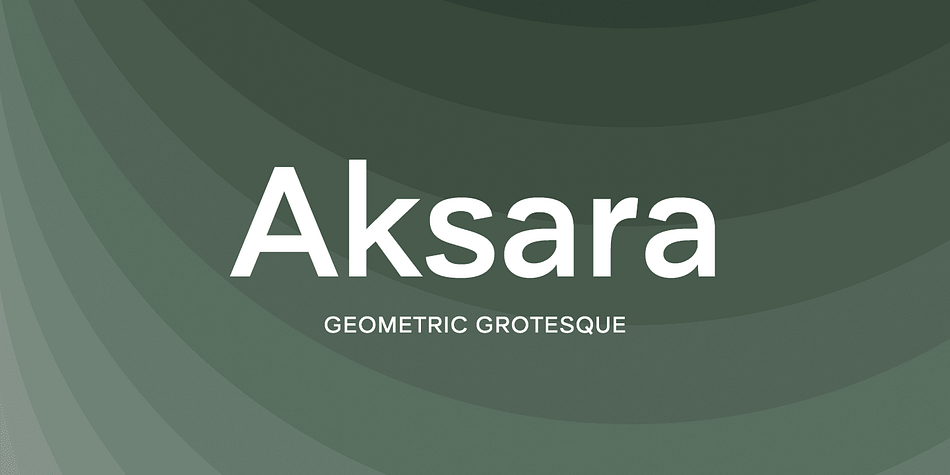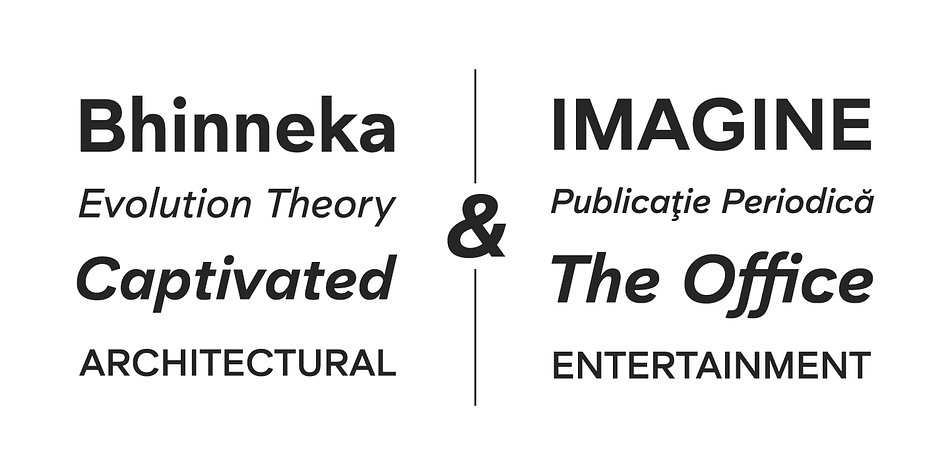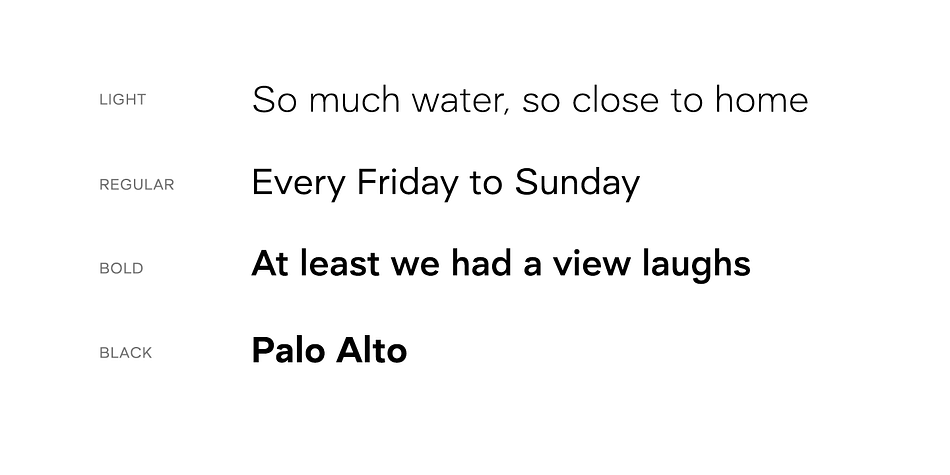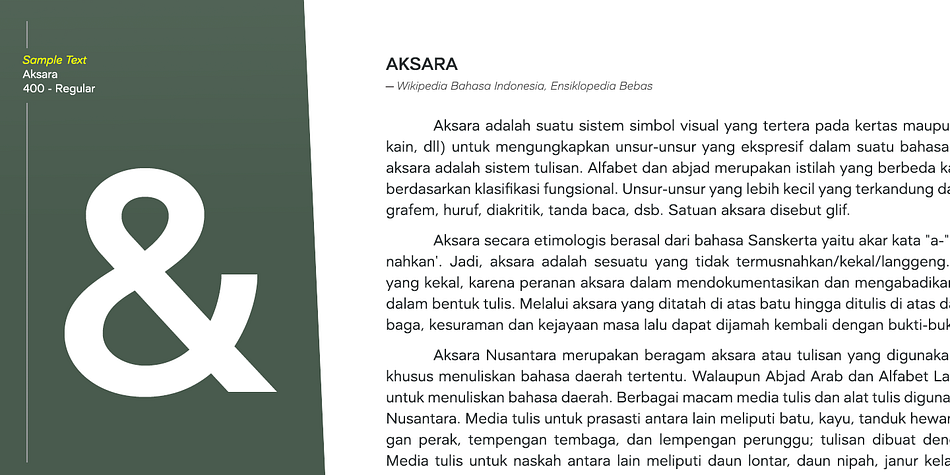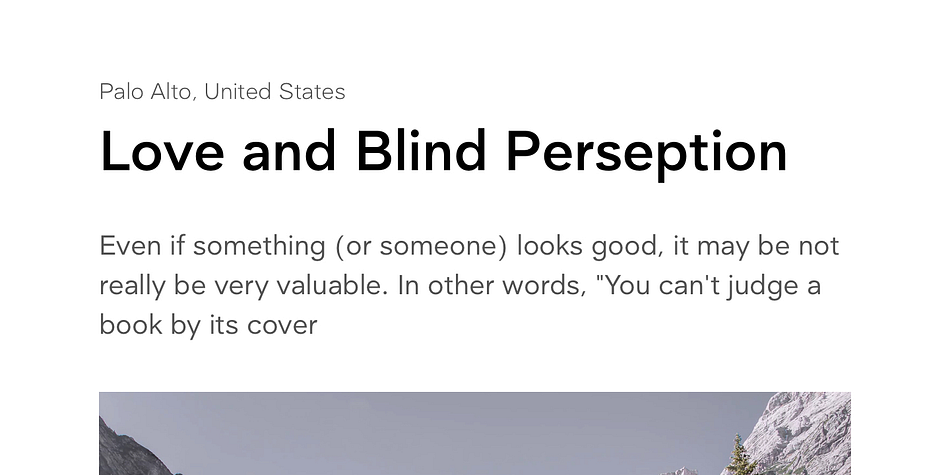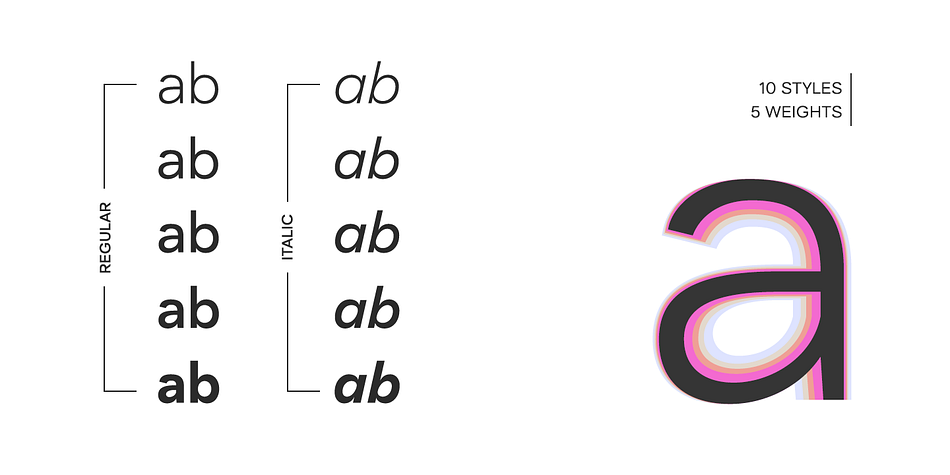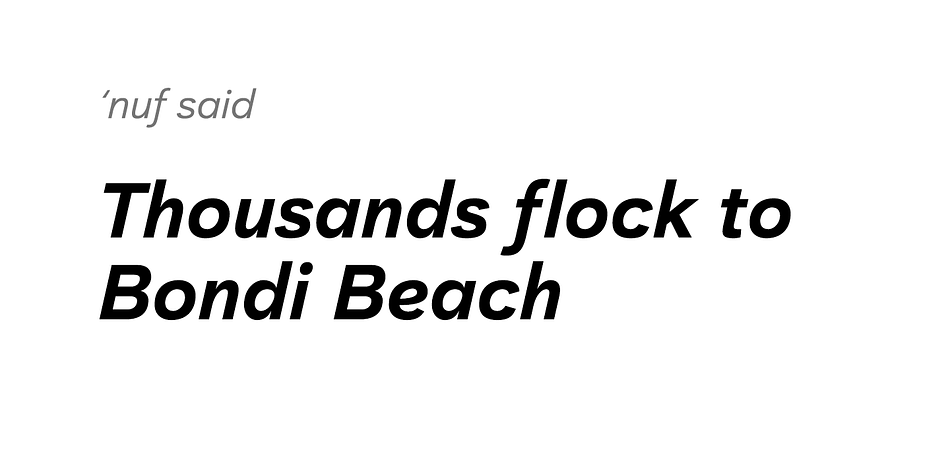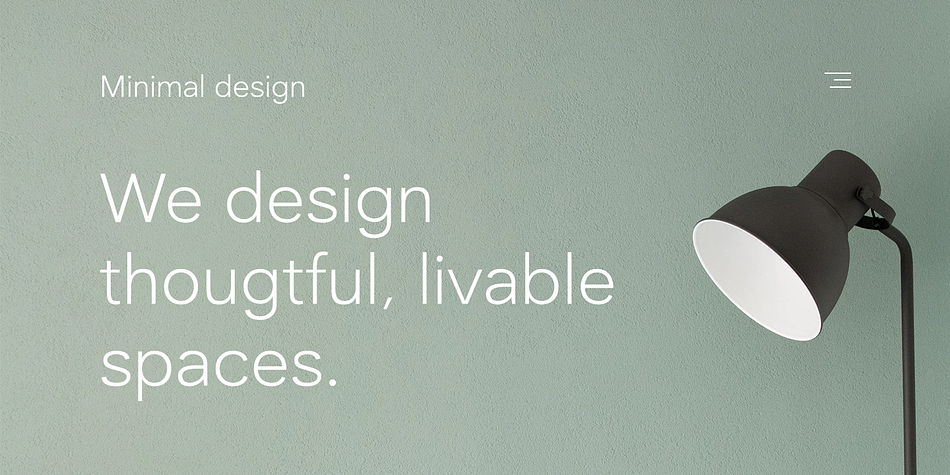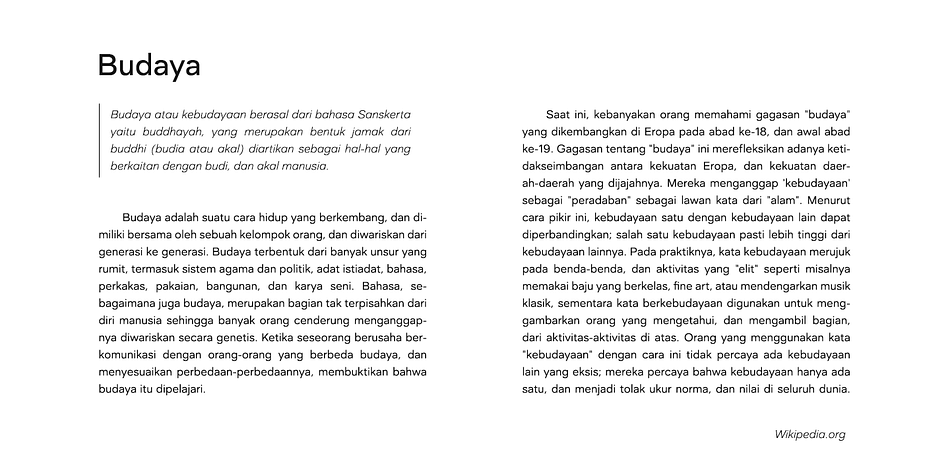
Designed by Anugrah Pasau, Aksara is a sans serif font family. This typeface has ten styles and was published by Lafontype.
Aksara is a sans serif font with a geometric touch. Aksara is not purely geometric, proportions have been designed so that all characters can look harmonious and have better readability.
Aksara comes with five types of weights including Italic style, bringing a total of ten styles and has been supported in various languages.